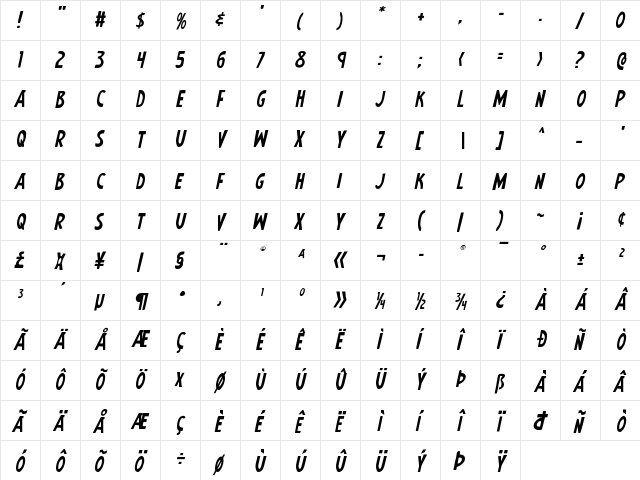
Earth's Mightiest Jumbled Italic Italic
Design Context for Earth's Mightiest Jumbled Italic Typeface
Earth's Mightiest Jumbled Italic is a composed and adaptable typeface that performs quietly and consistently across a wide range of design contexts. The dynamic lean of this cut emphasises speed and emphasis in any layout.
Pro Tip: Try Earth's Mightiest Jumbled Italic for annotation and caption copy alongside an upright companion — the contrast in angle creates a dynamic but ordered typographic system.